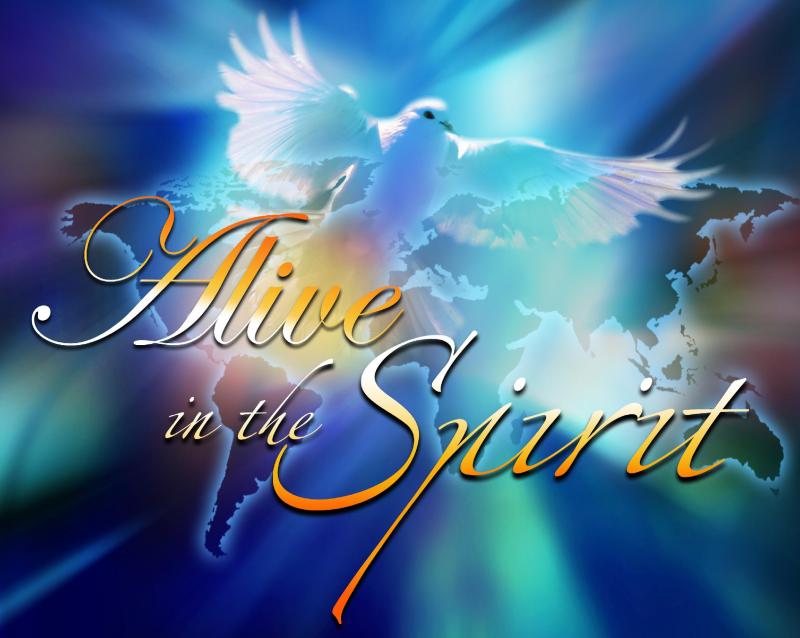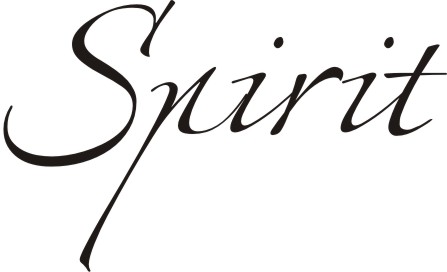
Script font ID - please
I know (Alive) is edwardian script, but (in the Spirit) is a different font. Any ideas? Thanks!!!
Looks like a strange combination of fonts. The word Alive is Edwardian Script and the words in the Spirit is Zapfino 3
At first glance I thought it was Scriptina but it's not.
Ooh it bugs me when someone uses two decorative fonts together like that.
It's like wearing a plaid shirt with a polka-dot tie.